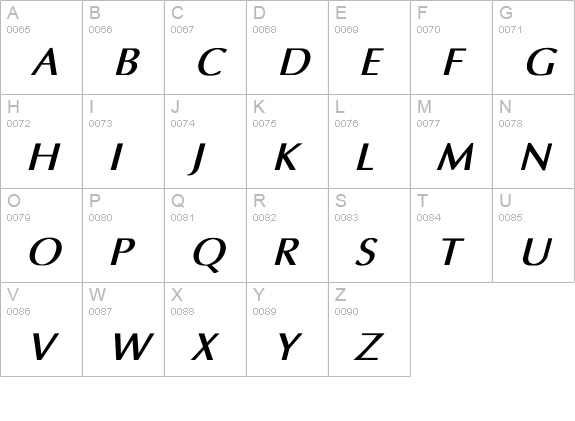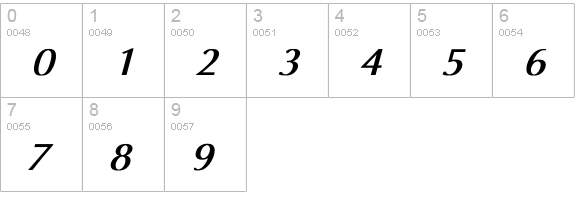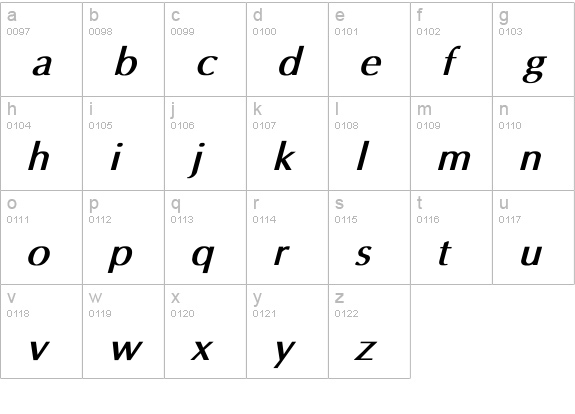
Amsterdam Bold Italic Font Details
Amsterdam Bold Italic is a strong, high-contrast, italic variant in the Amsterdam typeface family \xE2\x80\x94 well suited to headlines, attention-grabbing titles, and strong calls-to-action.
Introducing the captivating Amsterdam Bold Italic font - a striking and stylish typeface that effortlessly combines modern sophistication with a touch of classic elegance. This font is perfect for making a statement in your designs, whether for branding, advertising, or creative projects. Amsterdam Bold Italic features strong, bold lines with a subtle italicized slant that exudes confidence and charisma. Its unique design is sure to catch the eye and leave a lasting impression on any audience. Best of all, Amsterdam Bold Italic is available for free download at FontsMarket.com, making it easily accessible for all your design needs. Don't miss out on this opportunity to elevate your projects with this stunning and versatile font. Download Amsterdam Bold Italic today and unleash your creativity like never before.